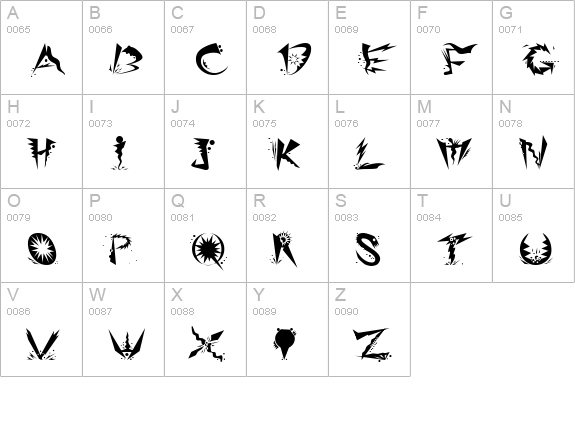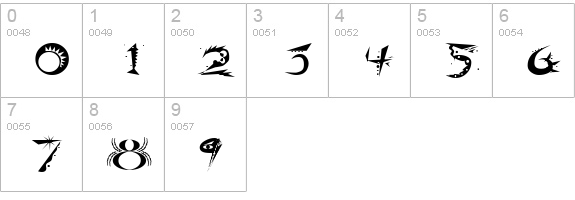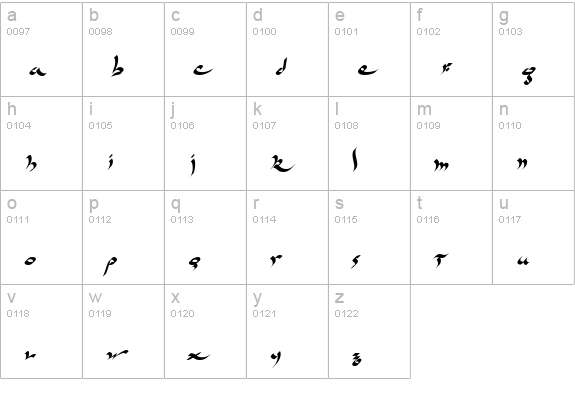
Ridicule Font Details
Introducing the captivating Ridicule font, a playful and whimsical typeface that adds a touch of lightheartedness to any project. With its unique and irregular letterforms, this font exudes a sense of fun and spontaneity, making it perfect for designs that aim to stand out from the crowd. The Ridicule font is available in a variety of weights and styles, allowing you to experiment and find the perfect combination for your creative endeavors. Whether you're designing a logo, a poster, or a website, this font will bring a cheerful and jovial energy to your work. What's even better is that Ridicule font is absolutely free! Yes, you read that right. You can easily download this font at FontsMarket.com, where it is freely available for personal and commercial use. This means that you have the freedom to incorporate this delightful typeface into your projects without any restrictions or limitations. So why wait? Embrace the joy and playfulness of the Ridicule font and let your designs shine with a touch of whimsy. Download it now at FontsMarket.com and let your creativity soar to new heights!